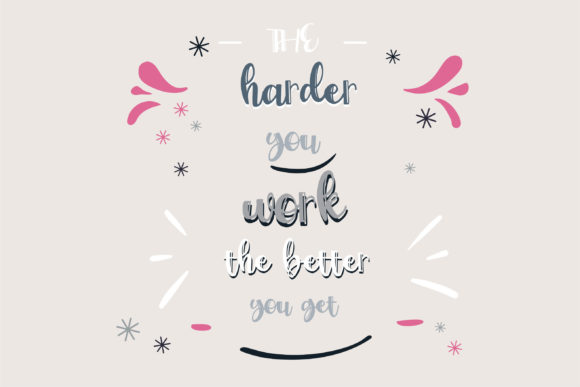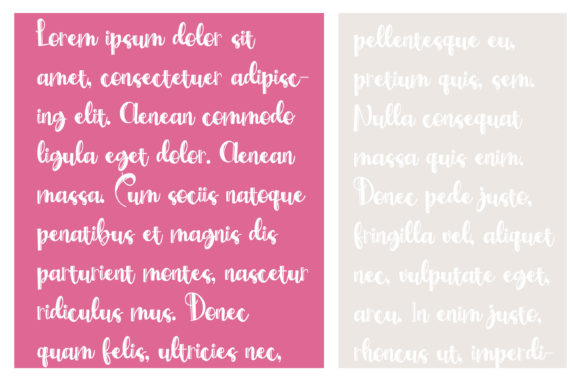
ZP Oh, Darling Font
db-ku.com - Script & Handwritten -- ZP Oh, Darling is a sweet and bouncy handwritten font that is crafted with great care for maximum results. It will add elegance and class to any of your design projects.